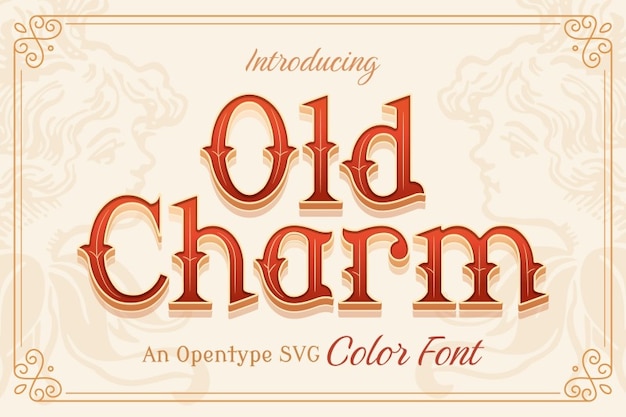
Old Charm
Old Charm Font
Old Charm is a stunning font that captures the essence of Victorian elegance with a classic, antique flair. Its intricately designed letterforms feature 3D effects that add depth and dimension, making it perfect for storybook titles, invitations, and vintage-themed projects. This font exudes a sense of nostalgia, inviting users to step into a world of timeless beauty and enchanting tales.